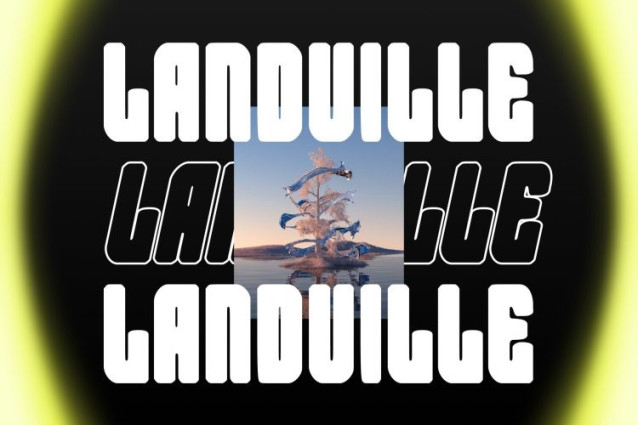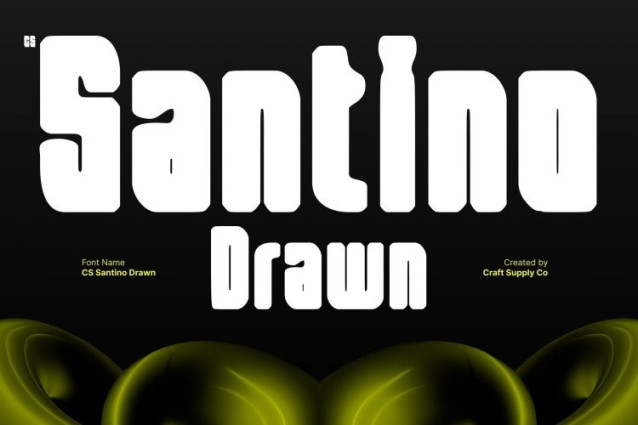
CS Santino Drawn Font
CS Santino Drawn Font This is a modern bold sans-serif font that blends clean structure with a subtle hand-drawn texture. Its strong weight and crisp construction create a powerful contemporary presence, while the drawn effect introduces natural imperfections that add warmth and individuality. This combination results in typography that feels polished yet expressive, modern yet human.
Striking Form with a Naturally Cool Attitude
Designed to stand out, this font radiates confident, cool energy. The bold letterforms and unique shapes convey strength and clarity, while the drawn details soften the rigidity, giving each character a relaxed, handcrafted charm. This balance makes the font feel confident, creative, and effortlessly stylish.
Versatile Across Modern Design Needs
Thanks to its clarity and consistent structure, this font adapts easily to a wide range of applications. It works seamlessly across digital interfaces, mobile apps, posters, editorial layouts, and product packaging. The added drawn texture makes it especially effective for branding and creative visuals that want to feel distinctive without losing professionalism.
High Impact with Natural Readability
Despite its bold appearance, this font maintains excellent legibility. Well-considered spacing and proportions ensure readability at both large and small sizes. Ideal for logos, headlines, social media graphics, and promotional materials, this font delivers strong visual impact while keeping a natural, approachable, and unique character in every letter.